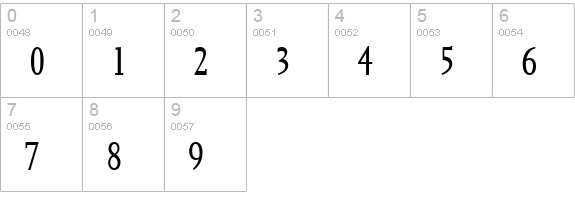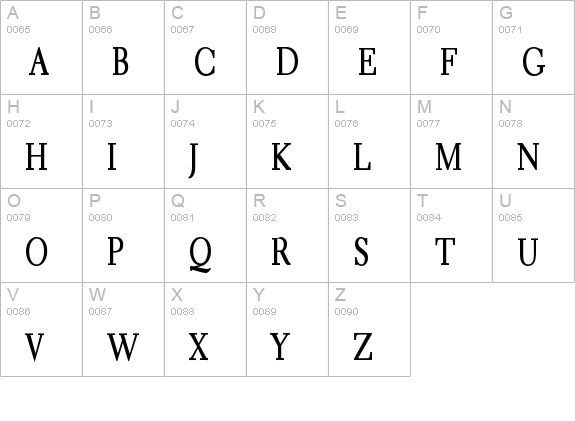
Transit 2 Condensed Bold is a strong, high-contrast, condensed-width variant in the Transit typeface family \xE2\x80\x94 well suited to headlines, attention-grabbing titles, and strong calls-to-action.
Transit 2 Condensed Bold font is a stunning display typeface that exudes power, elegance, and modernity. With its bold and condensed design, it effortlessly captures attention and commands the viewer's gaze. Every letter is meticulously crafted, resulting in a harmonious blend of strong, straight lines and precise curves. This font is perfect for headlines, titles, logos, posters, and any design project that requires a bold and impactful statement. Its condensed nature allows for maximum impact in limited space, while still maintaining legibility and readability. What sets Transit 2 Condensed Bold font apart is not just its aesthetic appeal, but also its availability. It is freely available to download at FontsMarket.com, making it accessible to designers, enthusiasts, and anyone in need of a high-quality font. Whether you're a professional designer or a passionate hobbyist, this font allows you to unleash your creativity without any financial constraints. With Transit 2 Condensed Bold font, your designs will stand out from the crowd, leaving a lasting impression on viewers. Its versatility and boldness make it suitable for a wide range of design projects, from sleek and modern to edgy and eye-catching. Download Transit 2 Condensed Bold font today from FontsMarket.com and experience the power and elegance it brings to your designs. Let your creativity flow freely with this remarkable typeface that is sure to elevate your projects to new heights.